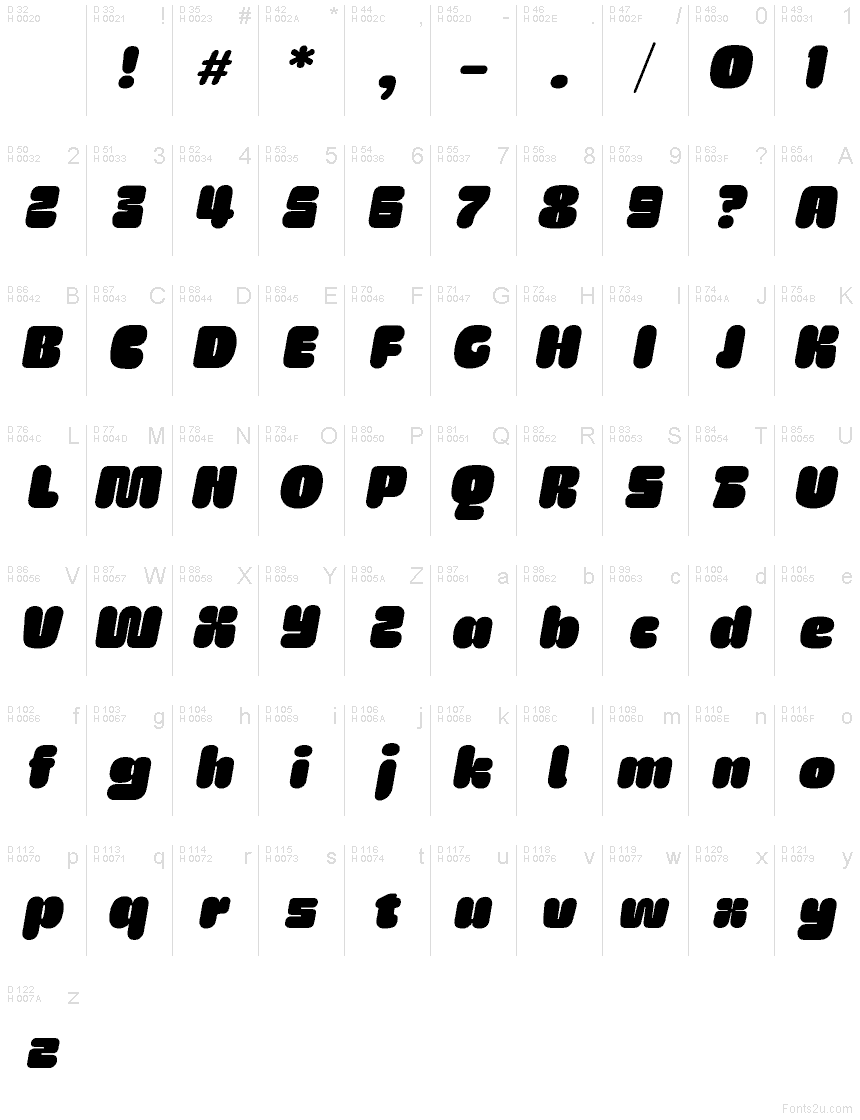
SG Wristan Slanted DEMO
SG Wristan Slanted font by Studio Gulden is a free groovy display typeface. Part of the SG Wristan family, it leans forward with chunky, pillowy strokes and glossy, rounded corners that feel almost inflatable. That easy slant gives headlines momentum—like letters caught mid-stride—while the tight rhythm keeps blocks of type bold and unmistakable.
Using SG Wristan Slanted, your message jumps off the page for music posters, festival badges, retro packaging, stickers, social headers, merch, and bold storefronts. This free font thrives at big sizes; keep tracking snug and let it breathe with generous margins. For copy, pair it with a simple geometric sans to balance the bubbly energy.